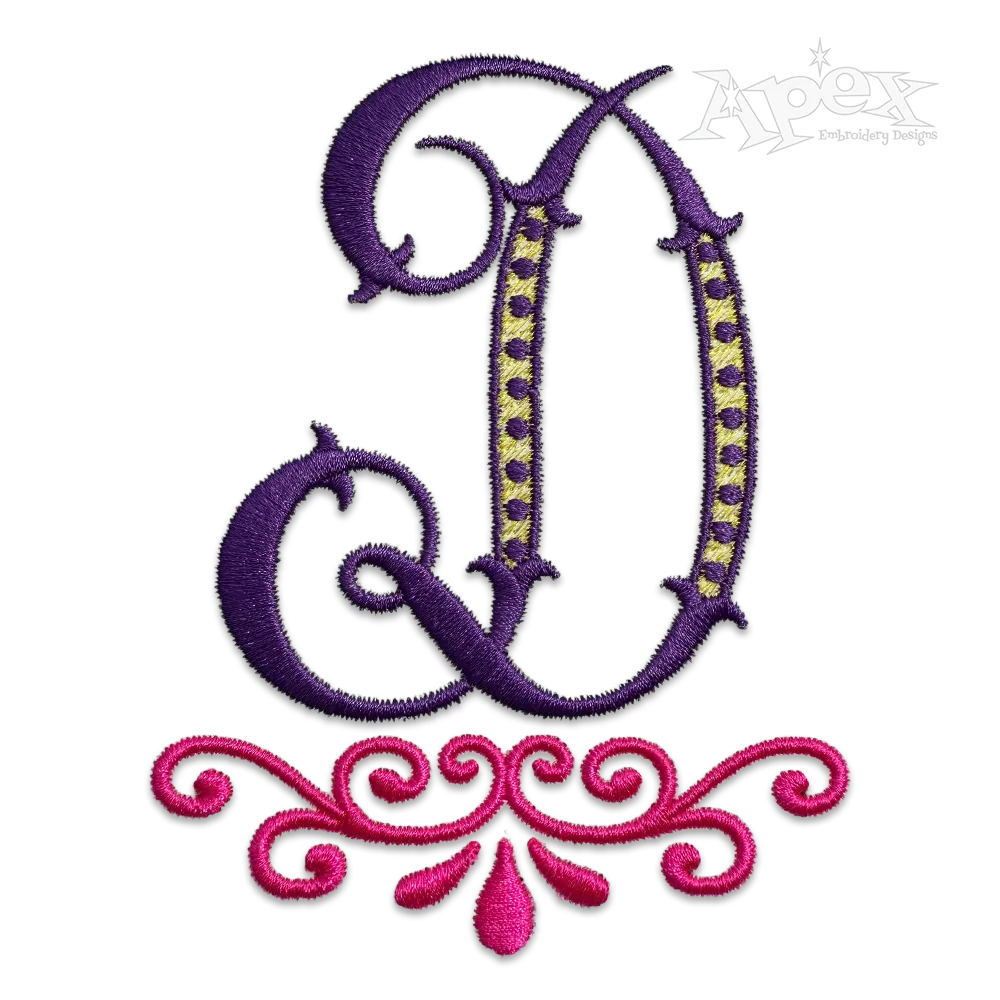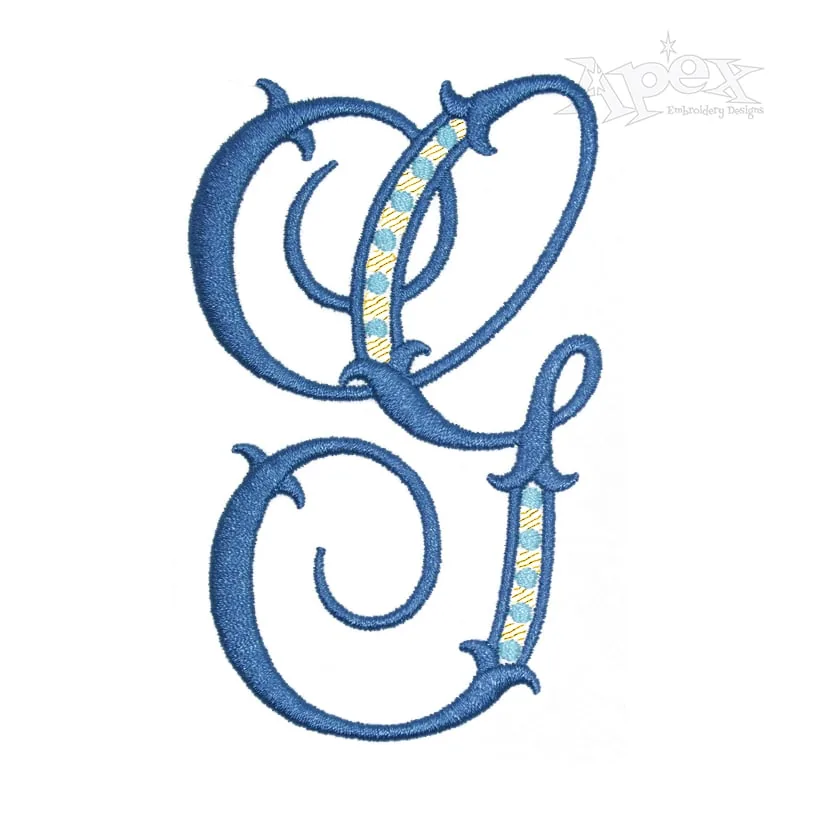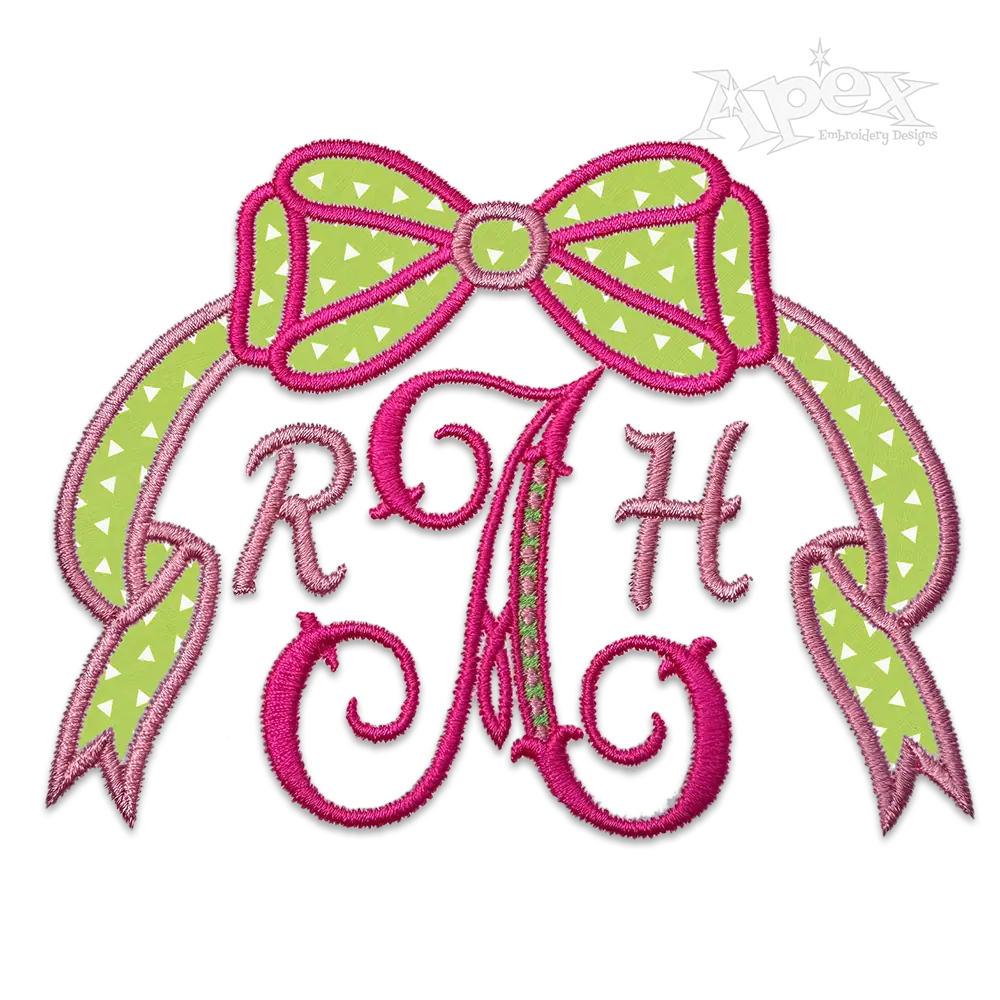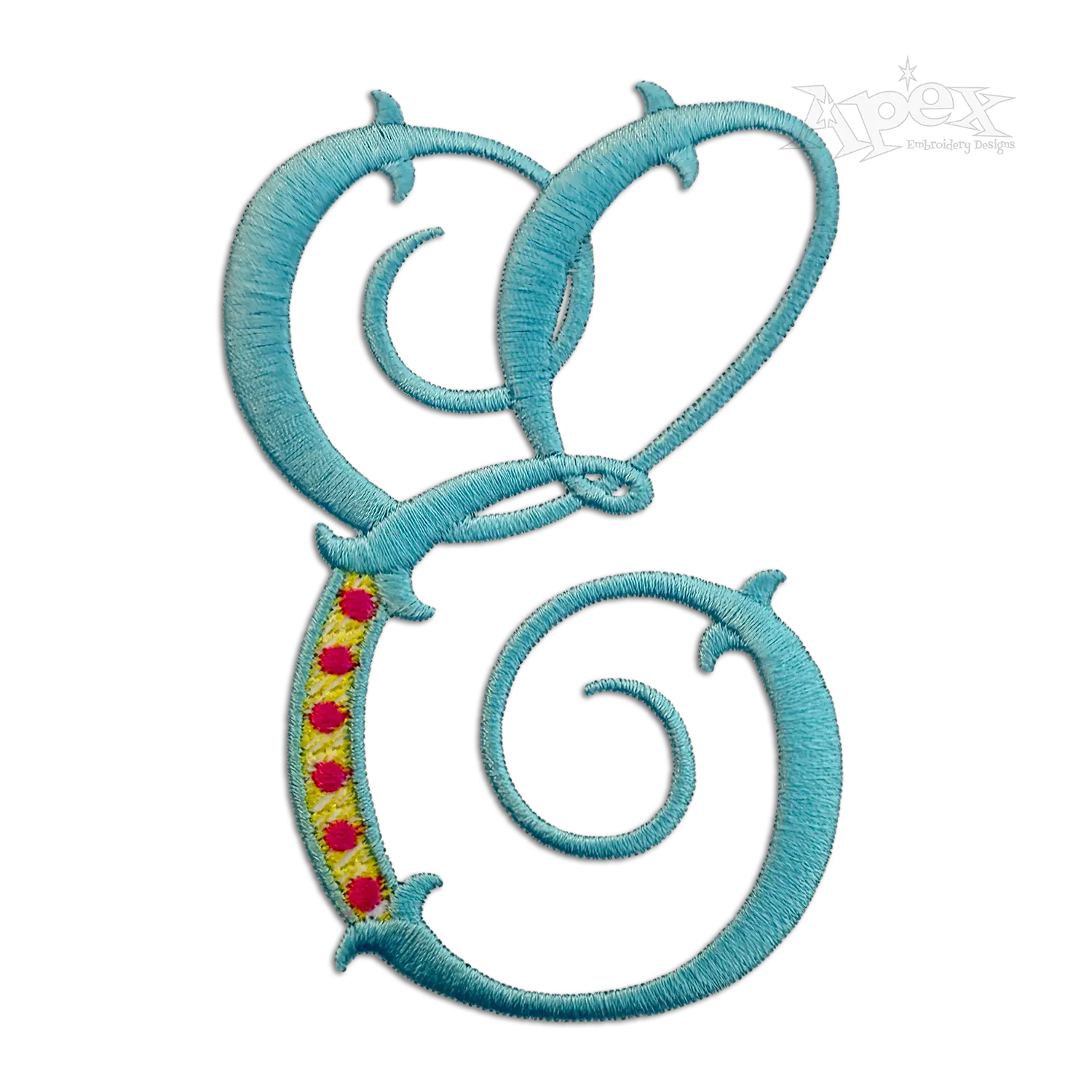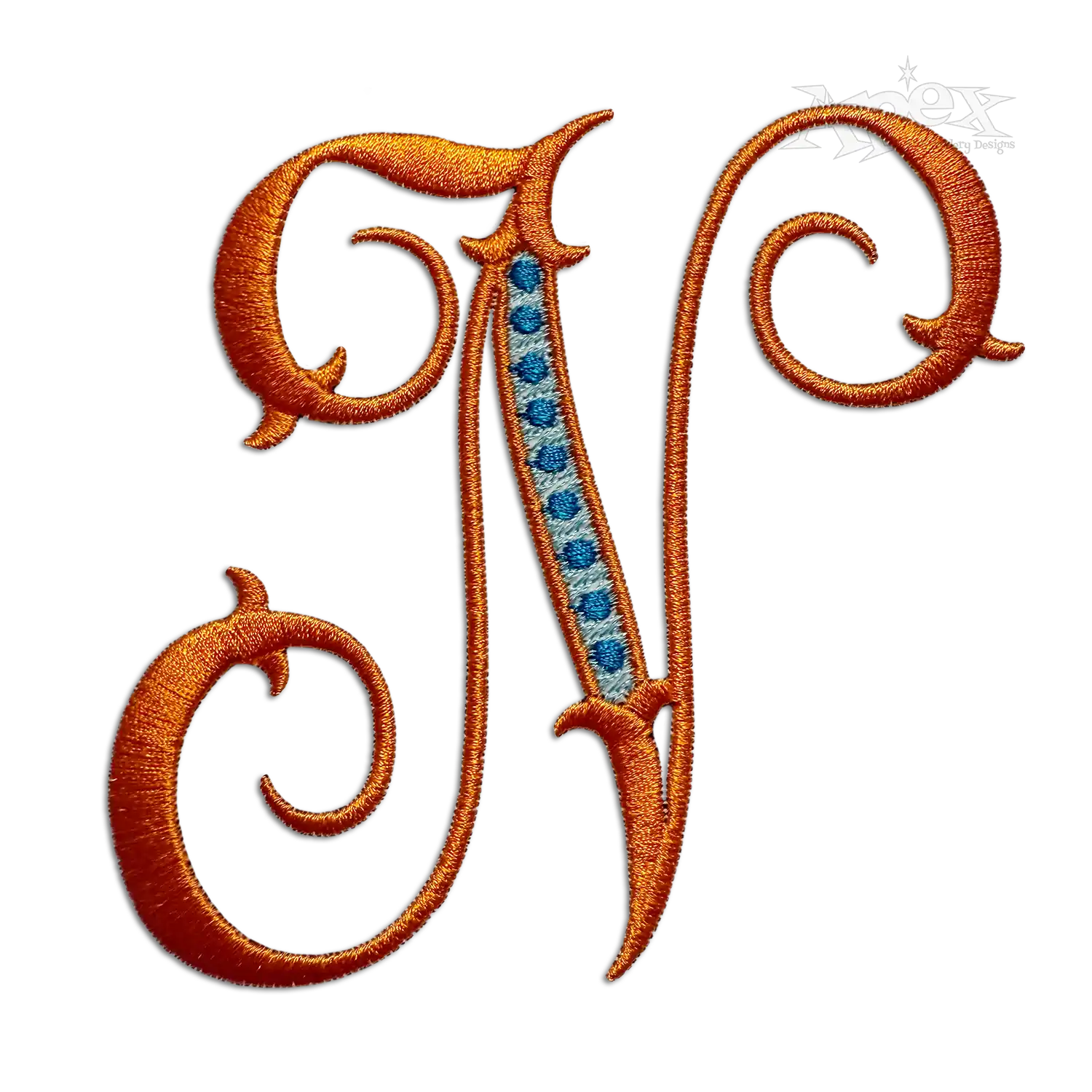
Dandy Dots Embroidery Font
Born from a love of mid-century couture and the joyful rhythm of vintage haberdashery, the Dandy Dots Embroidery Font breathes effervescent life into personalized needlework. As digitizers, we envisioned a typography that feels both dashing and spirited—a confident satin stitch alphabet punctuated by whimsical dotted embellishments that catch the light like polished pearls. Whether stitched onto crisp summer linens or heirloom nursery keepsakes, Dandy Dots dances effortlessly between structured tailoring and lighthearted charm, transforming every custom monogram into a playful conversation piece.
Project Ideas for Dandy Dots
The cheerful cadence of this dotted typography lends itself to vibrant celebrations and timeless gift-giving:
- Linen Cocktail Napkins: Add a festive touch to outdoor dinner parties and garden soirees with bright, contrasting single-initial monograms.
- Bespoke Resort Wear: Embellish relaxed linen shirts, sun hats, and poolside kaftans for personalized vacation attire.
- Canvas Market Totes: Utilize the grand 6-inch scale to create striking, durable everyday carryalls with tactile satin sheen.
- Bridal & Bachelorette Robes: Stitch celebratory bridal party monograms onto silk or cotton waffle robes for memorable, personalized gifting.
- Heirloom Nursery Linens: Craft sweet, bubbly name placards on heirloom crib blankets, keepsake quilts, and birth announcement pillows.
Dandy Dots carries a distinct personality, and thoughtful placement will let its playful character shine:
- The Diagonal Corner: Positioned at a 45-degree angle approximately 1.5 to 2 inches from the hemmed corner of dinner napkins, the dots create an exquisite framing effect.
- Left Chest & Pockets: Center the 2-inch lettering over casual button-downs, pajama tops, or denim jackets for an unexpected pop of tailored whimsy.
- Center Front on Pillows: The 4-inch or 6-inch letters make a balanced, centered focal point on standard boudoir or lumbar accent pillows.
- Cuff Accents: Stitch single letters along the outer wrist of structured shirts or cozy lounge cuffs to deliver an understated bespoke detail.
Dandy Dots Craft & Letterform Details
Every glyph in the Dandy Dots collection is an artisan study in balance, rhythm, and stitch mechanics. Rather than simply punching uniform circles onto existing type, each dot accent has been meticulously scaled, positioned, and stitch-directed to complement the natural curvature of the primary satin columns. We engineered each letterform with intelligent underlay foundations that stabilize the fabric while maintaining loft, ensuring that the smooth, lustrous satin stitches lay flat without puckering.
The traveling stitches between strokes and decorative accents are hidden beneath primary columns wherever possible, minimizing trims while preserving a clean, pristine backside. From the sweeping, confident arch of the capital 'R' to the buoyant symmetry of the 'O', Dandy Dots balances generous stitch density with fluid movement, producing crisp contours and dazzling light reflection on both textured weaves and smooth batiste linens.